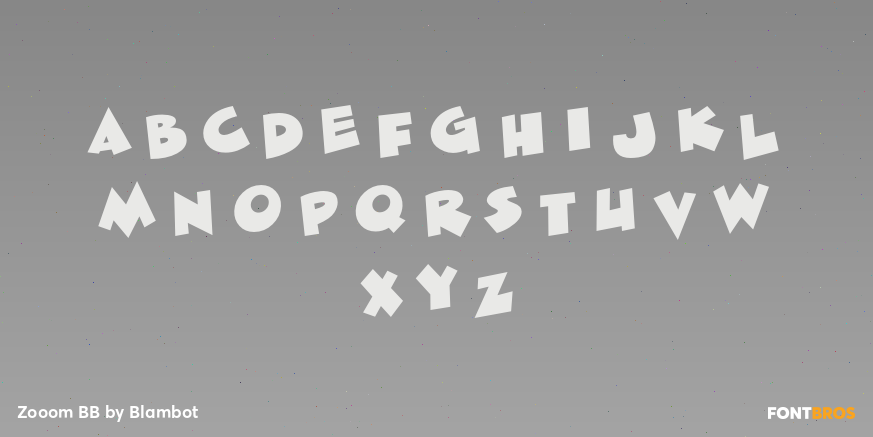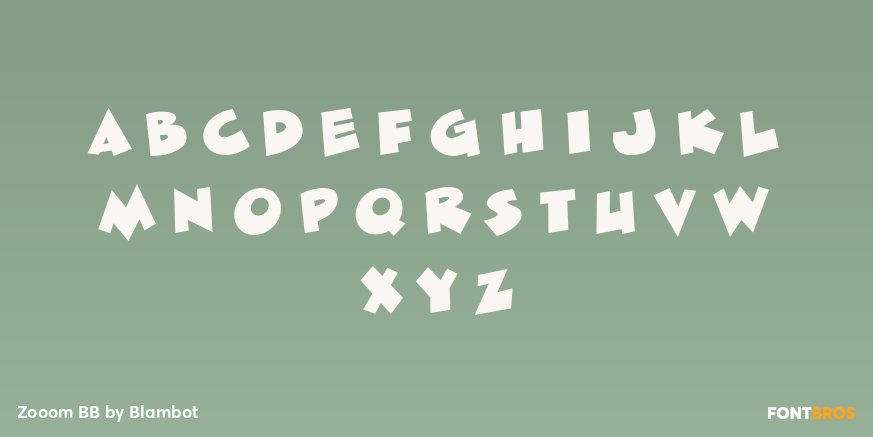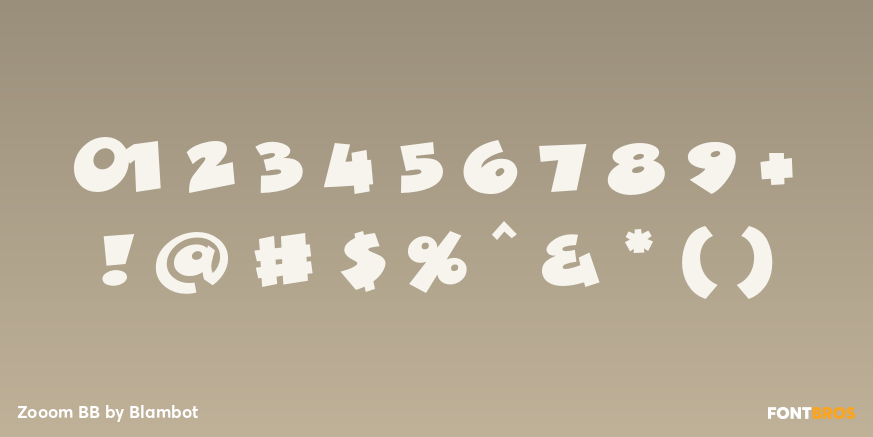
Zooom BB
Font Family by Blambot
But it doesn't end there!
ZOOOM would look great on everything from birthday invitations to packaging for toys! For added wackiness, the uppercase characters are staggered on the baseline.